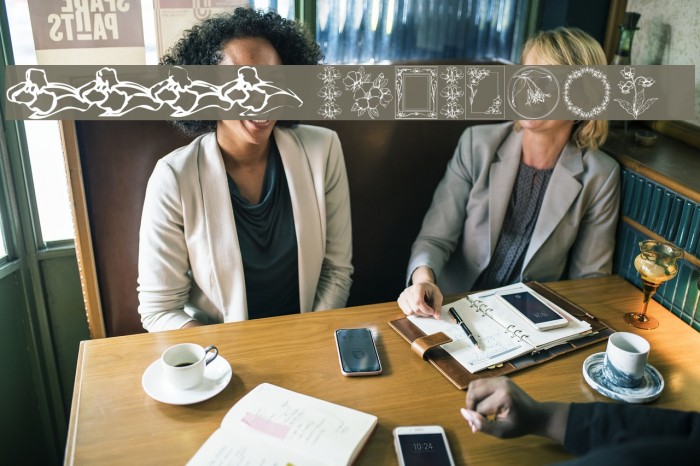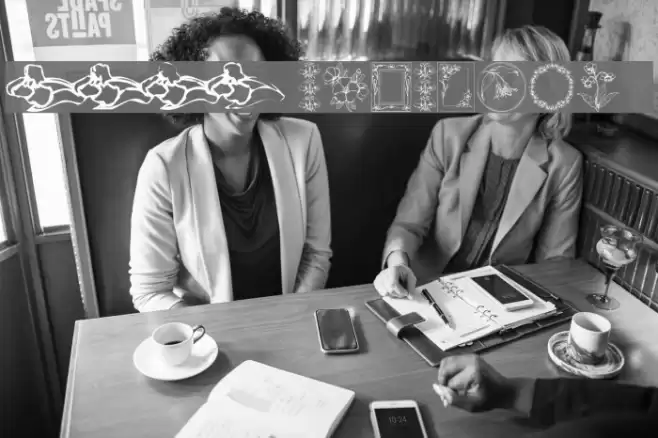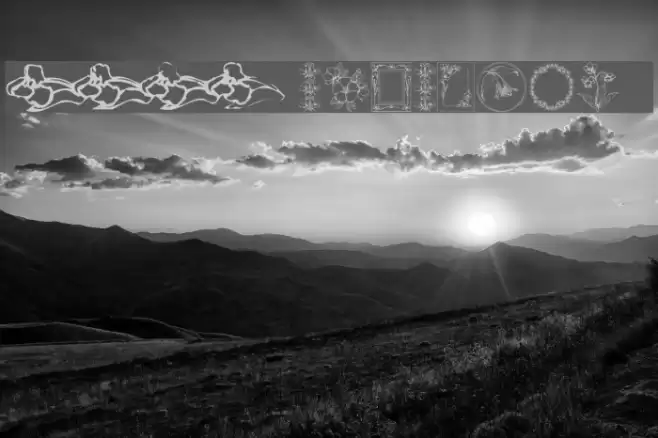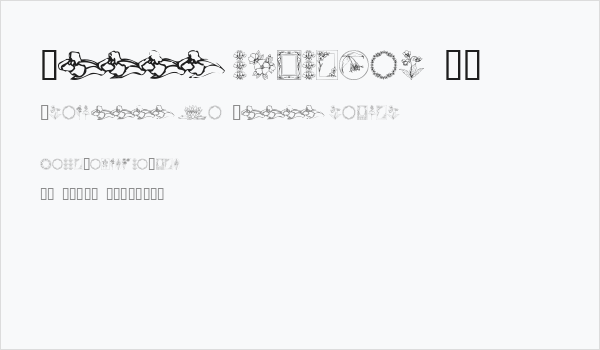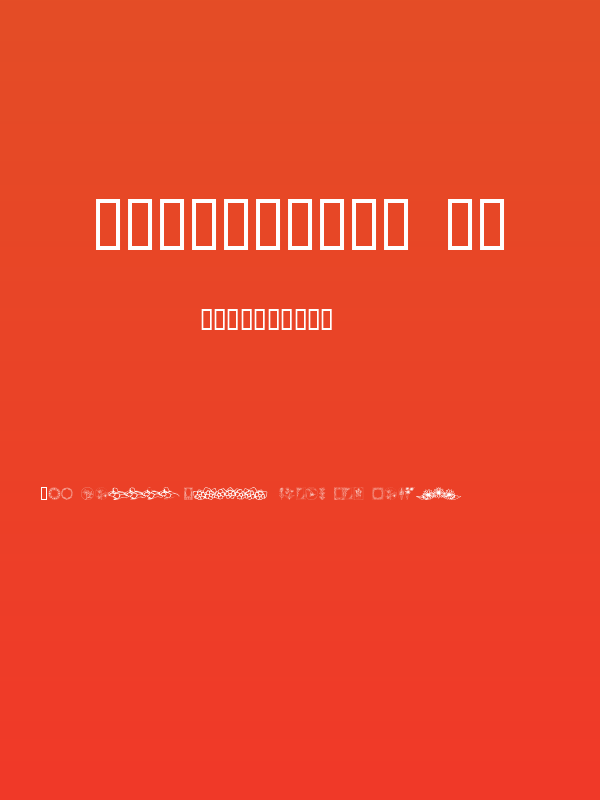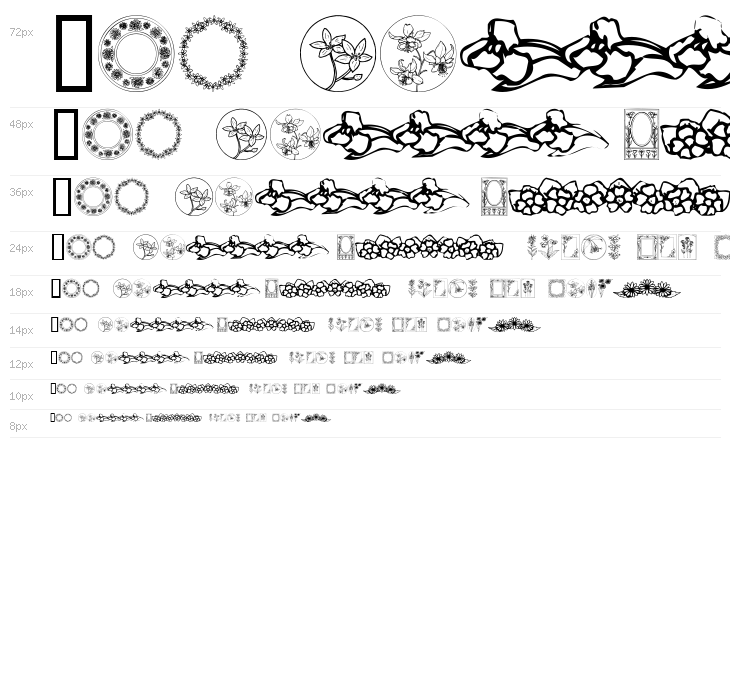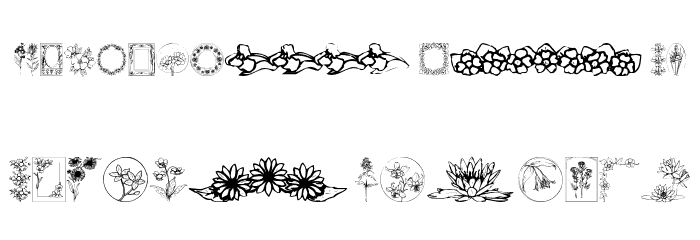
Wildflower IV Font
Wildflower IV Description
A decorative display font featuring intricate wildflower and botanical illustrations, including floral frames, borders, and individual flower motifs. The glyphs are highly detailed and ornamental, making them visually engaging and artistic.
Overall StyleDecorative, Botanical, Artistic
Use CaseDecorative elements, Borders, Frames, Logos, Invitations
Proposed ProjectsWedding invitations, greeting cards, botanical branding, scrapbooking, decorative borders, event posters.